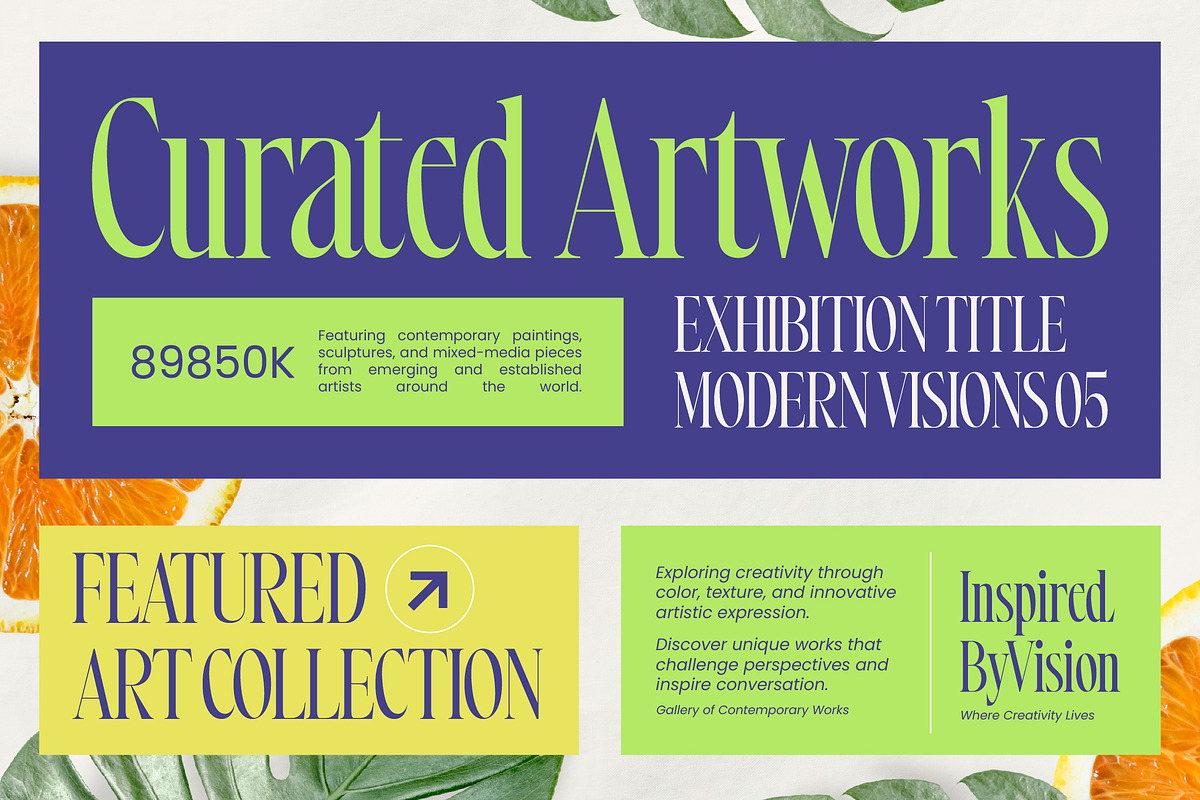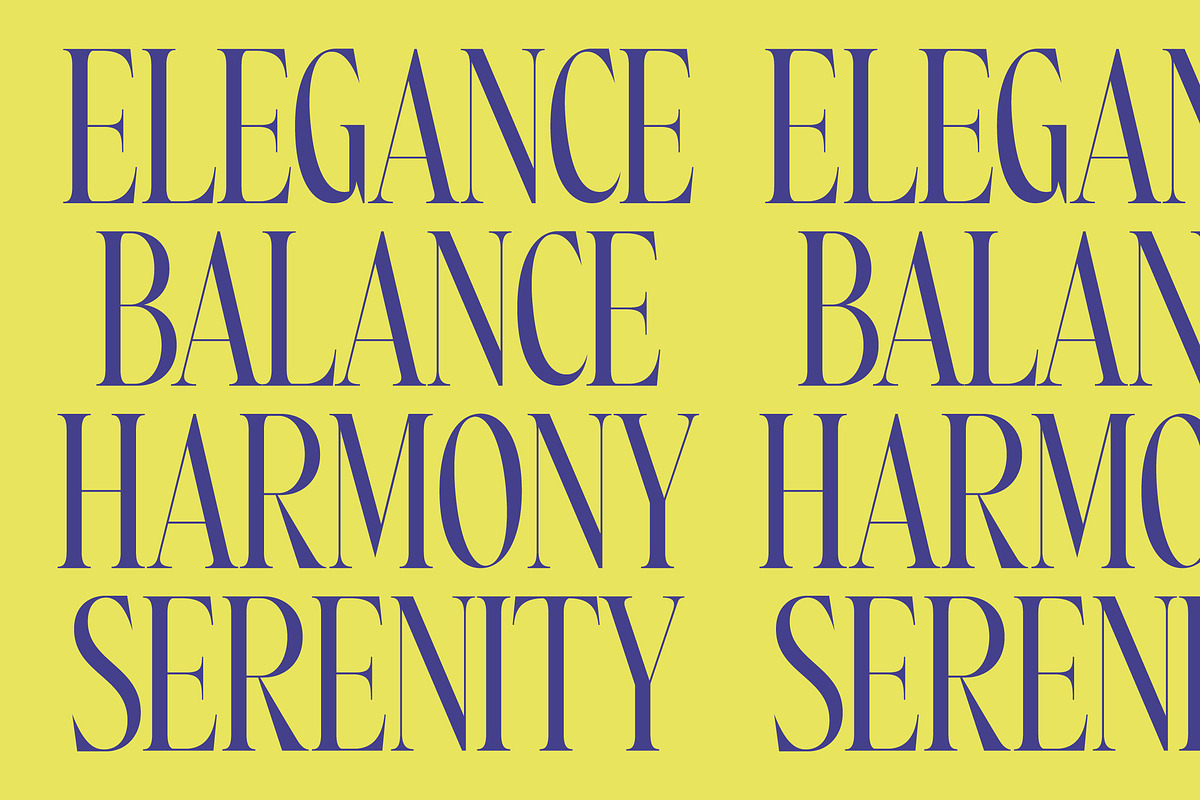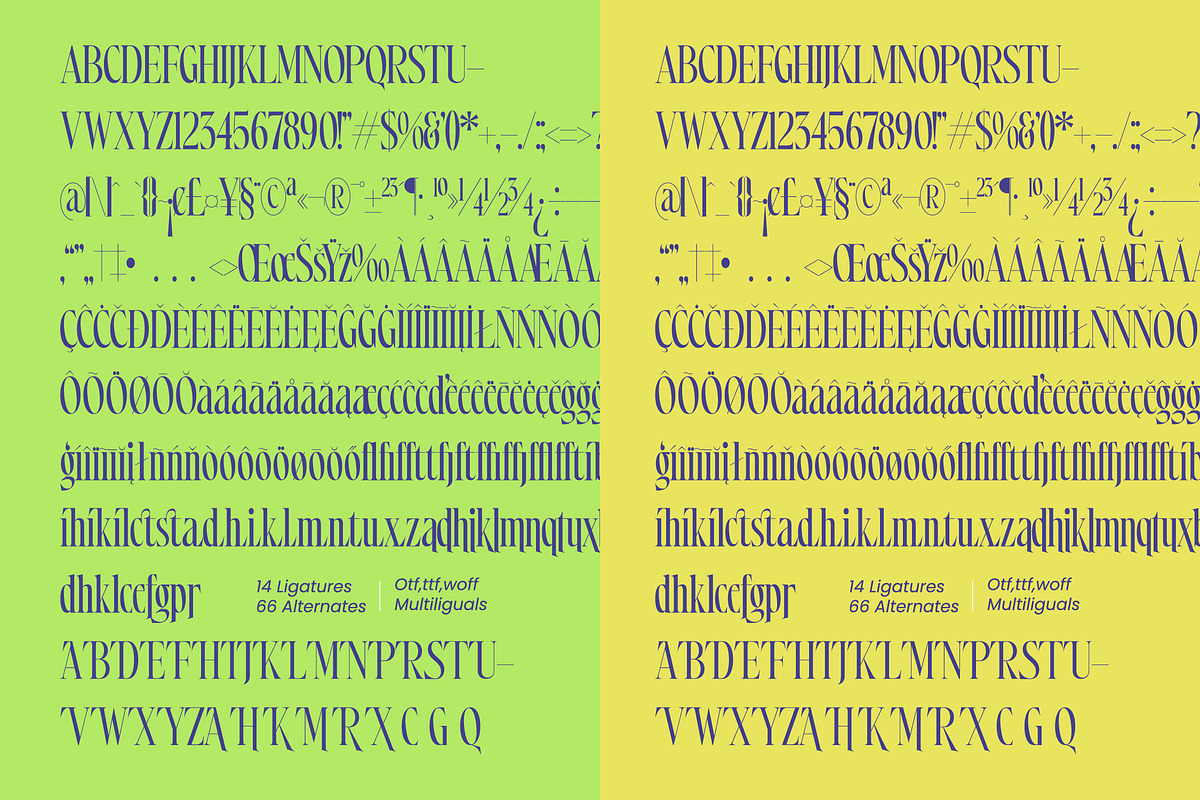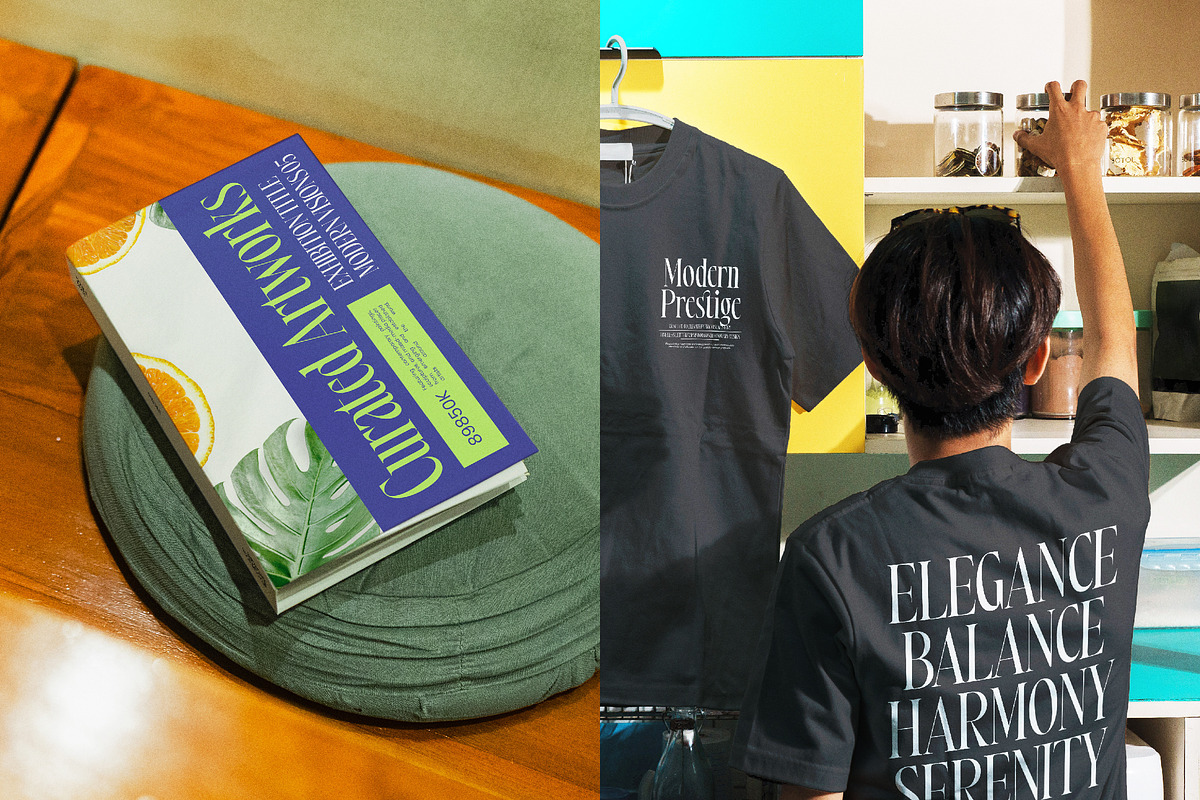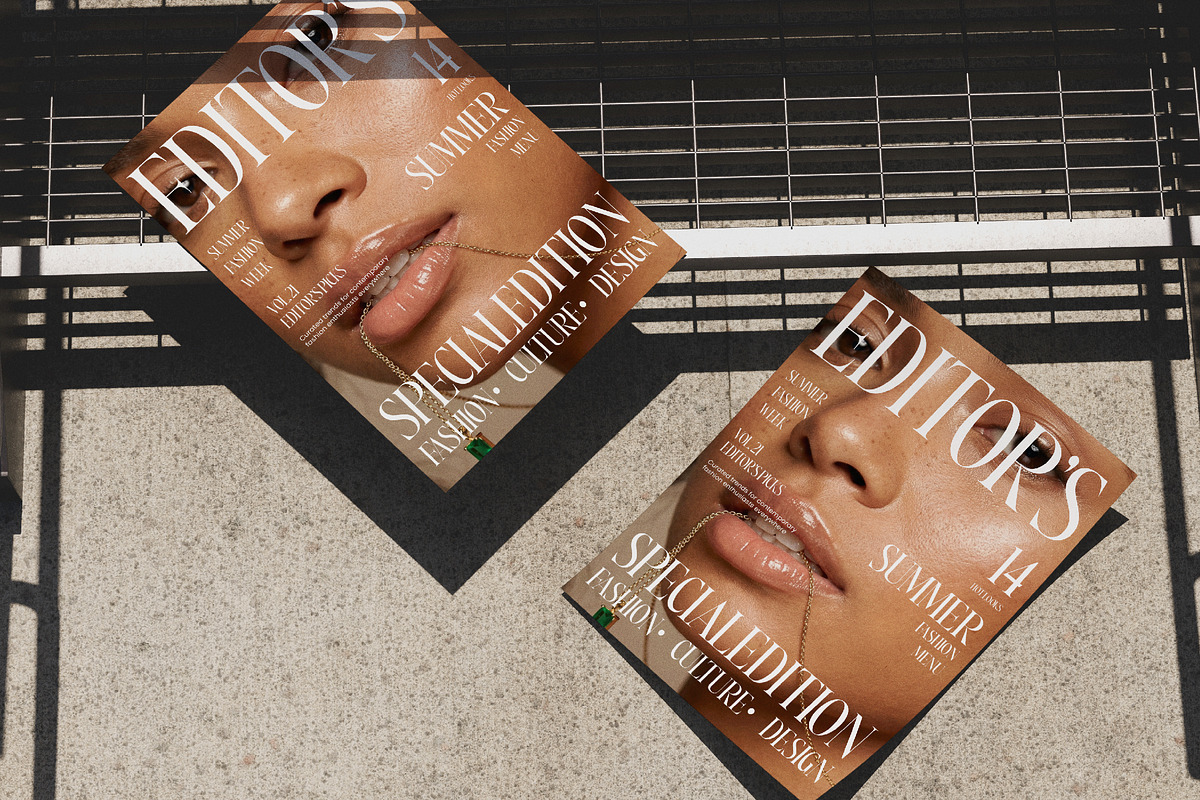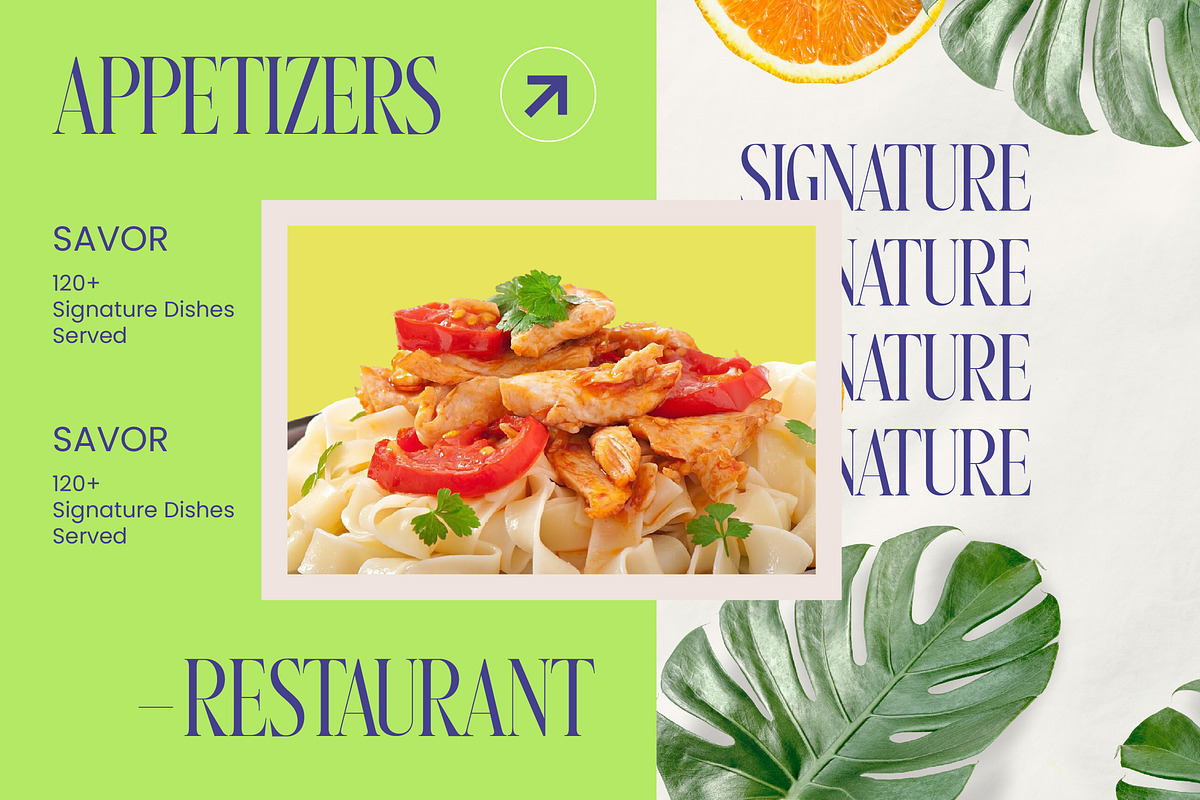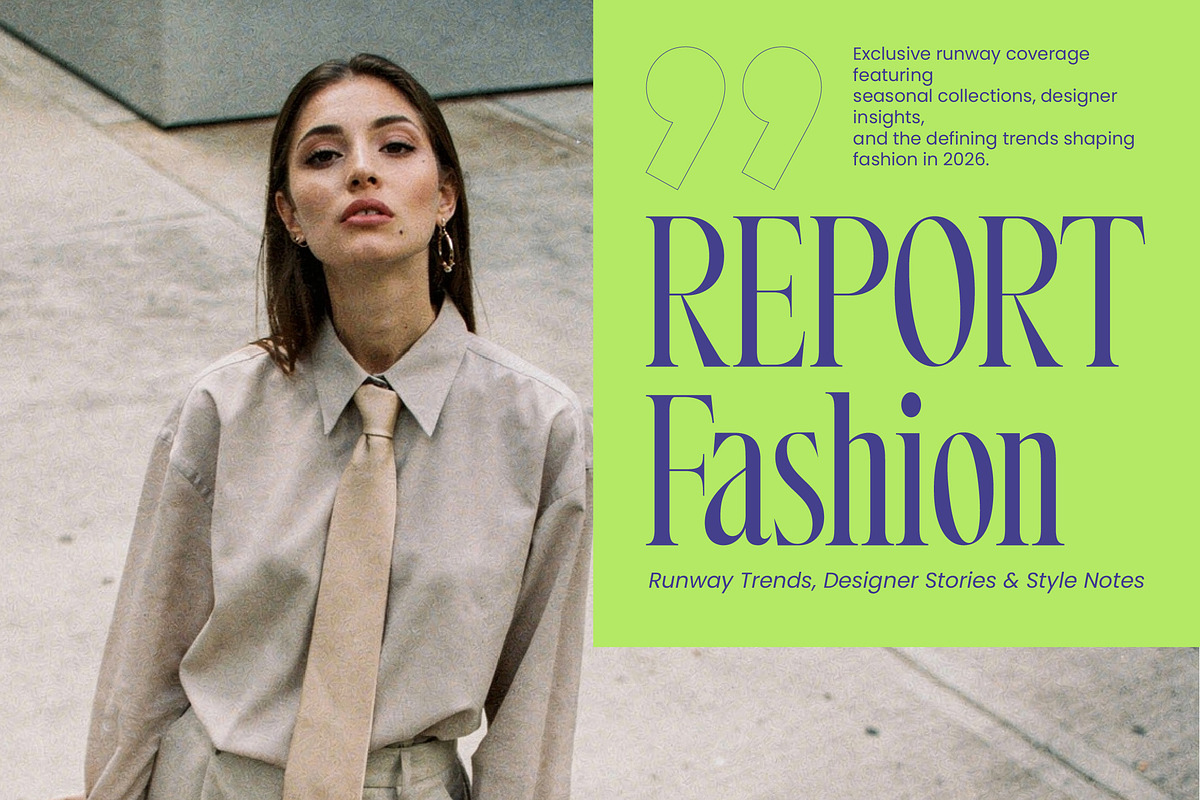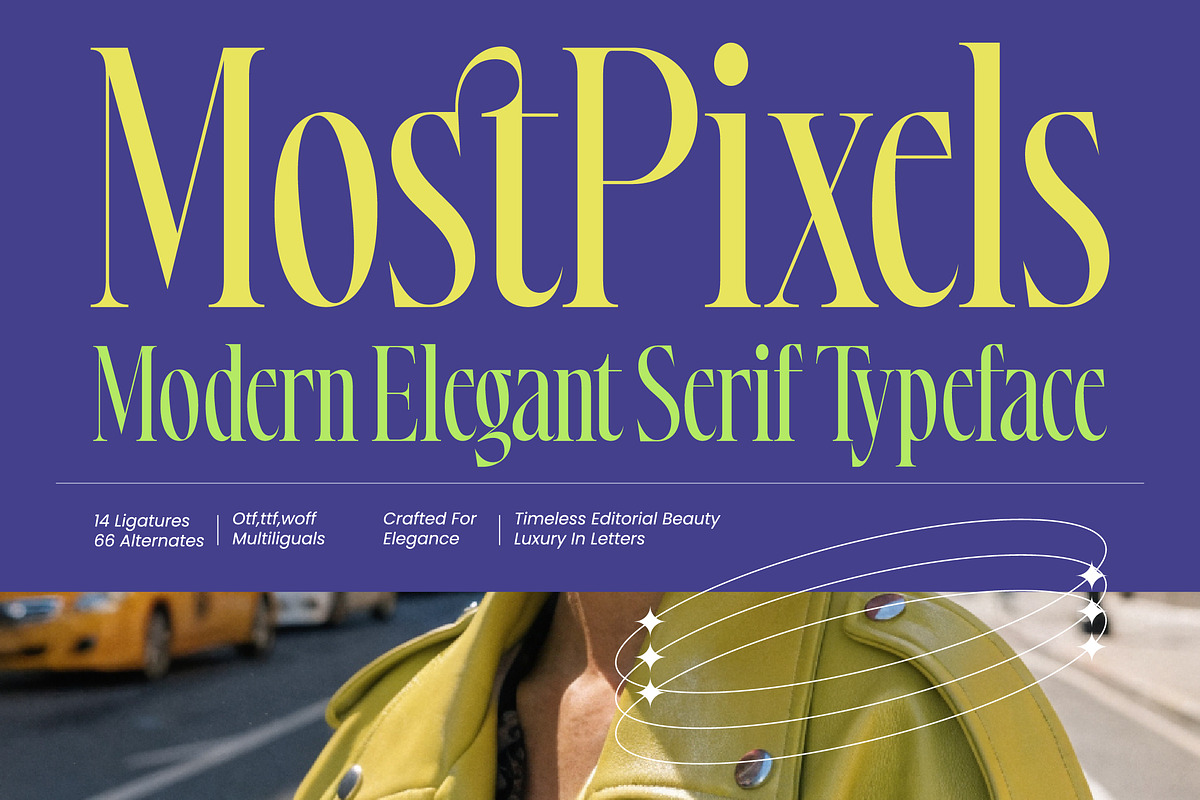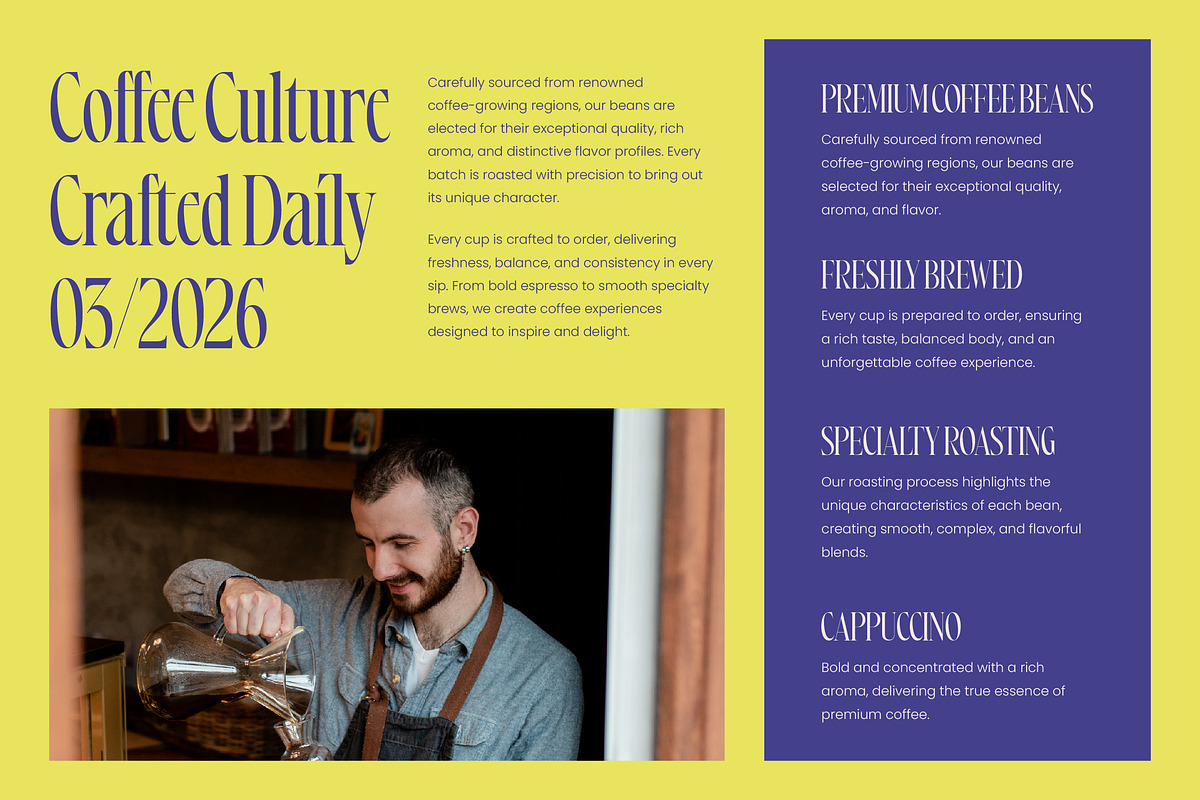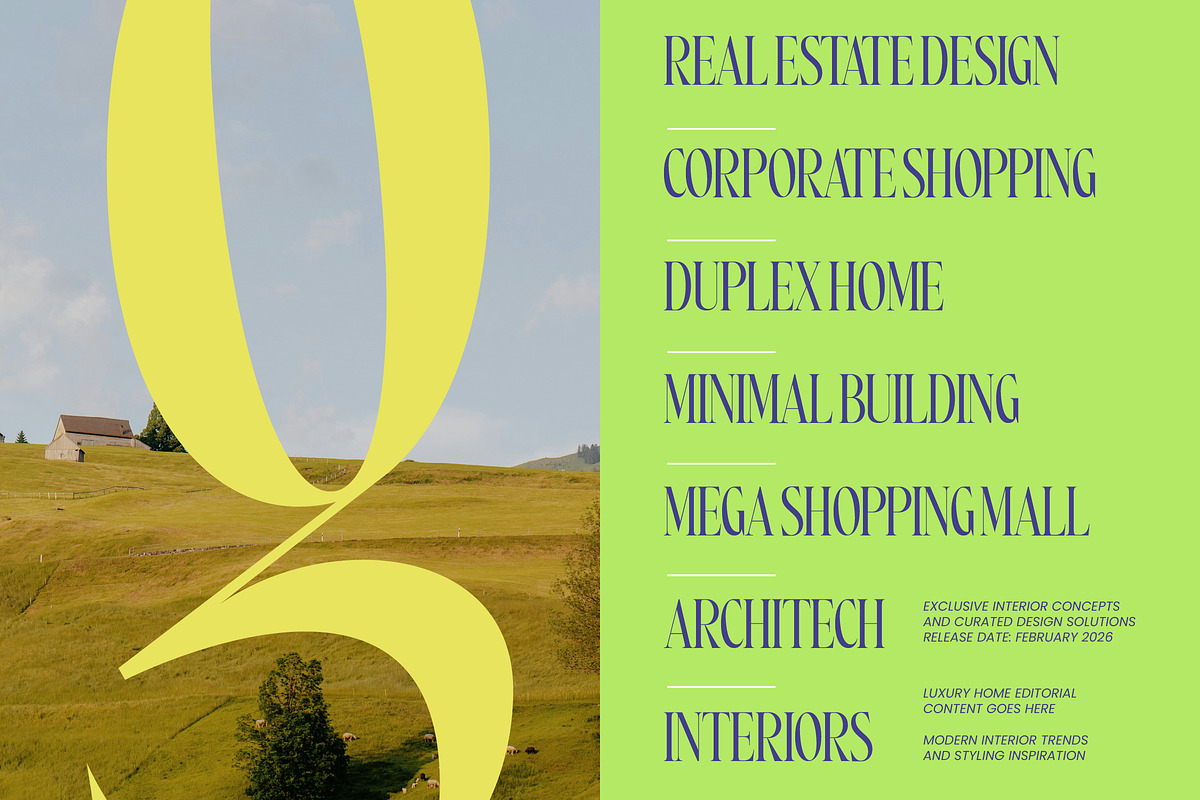
Most Pixels Modern Elegant Serif
Most Pixels – Modern Elegant Serif , Elevate your brand's visual identity with a touch of high-fashion sophistication and unmatched grace. Most Pixels – Modern Elegant Serif is a high-contrast serif that perfectly balances modern aesthetics with timeless elegance. Its tall, condensed letterforms and razor-sharp serifs create a striking presence that commands immediate attention, making it an essential asset for any luxury-oriented project.
Unleash creative possibilities with a digital toolkit built for professional excellence and global reach. Featuring 14 unique ligatures and 66 alternate characters, this typeface allows for deep customization in premium editorial design and high-end advertising. With its extensive multilingual support, Most Pixels – Modern Elegant Serif adapts seamlessly across global markets, making it incredibly versatile for international projects and diverse branding needs.
Identify the perfect solution for your most demanding high-end design requirements. This typeface is the ideal application for luxury branding, high-end packaging, and fashion magazine layouts. Whether you are crafting a sophisticated logo or developing a cohesive visual identity for a boutique brand, Most Pixels – Modern Elegant Serif is perfect for creating an atmosphere of exclusive quality and refined taste.
Invest in a professional design asset that transcends fleeting trends to deliver lasting value. By choosing Most Pixels – Modern Elegant Serif, you are opting for a commercial typeface that delivers both striking style and functional substance. Its professional-grade legibility and distinctive personality ensure your message resonates with a premium audience, establishing it as a must-have tool for contemporary designers.